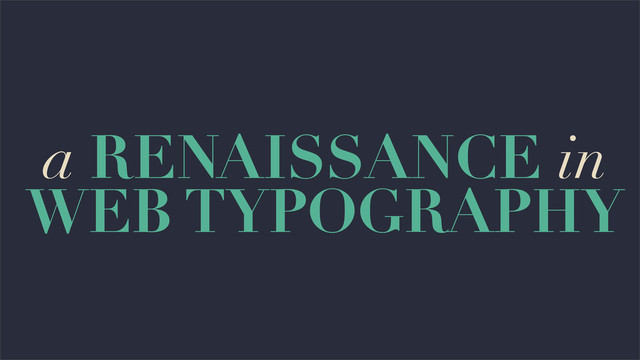
Gave this talk to a group of sophomore Interaction Design students at CCA in San Francisco. Covering web fonts, their relation to the history of typography, and the differences and opportunities in how we can use typography on the web.
4. If my poor Flatland friend retained the vigour of mind
which he enjoyed when he began to compose these Memoirs, I should not now need to represent him in this preface, in which he desires, rstly, to return his thanks to his readers and critics in Spaceland, whose appreciation has, with unexpected celerity, required a second edition of his work; secondly, to apologize forcertain errors and misprints (for which, however, he is not entirely responsible); and, thirdly, to explain one or two misconceptions. But he is not the Square he once was. If my poor Flatland friend retained the vigour of mind which he enjoyed when he began to compose these Memoirs, I should not now need to represent him in this preface, in which he desires, rstly, to return his thanks to his readers and critics in Spaceland, whose appreciation has, with unexpected celerity, required a second edition of his work; secondly, to apologize forcertain errors and misprints (for which, however, he is not entirely responsible); and, thirdly, to explain one or two misconceptions. But he is not the Square he once was.
5. Flatland friend retained the vigour of mind which he enjoyed
whe ompose these Memoirs, I should not now need to represent him i which he desires, rstly, to return his thanks to his readers and cri whose appreciation has, with unexpected celerity, required a sec his work; secondly, to apologize forcertain errors and misprints (fo e is not entirely responsible); and, thirdly, to explain one or two tions. But he is not the Square he once was.
7. Responsive design “The control which designers know in the print
medium, and often desire in the web medium, is simply a function of the limitation of the printed page. We should embrace the fact that the web doesn’t have the same constraints, and design for this exibility.” John Allsopp, “A Dao of Web Design”
8. Fluid layout The layout should adjust to the width of
the canvas. At a basic level, this means using relative units (like percentages) instead of relying exclusively on absolute units, like pixels.